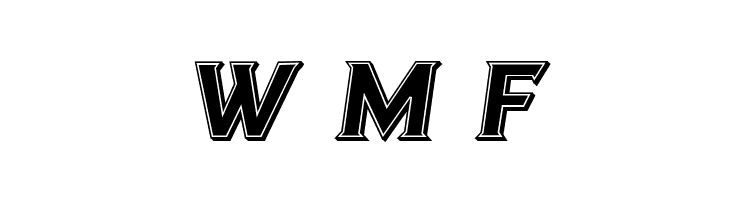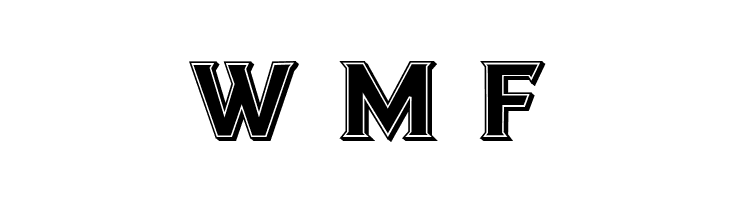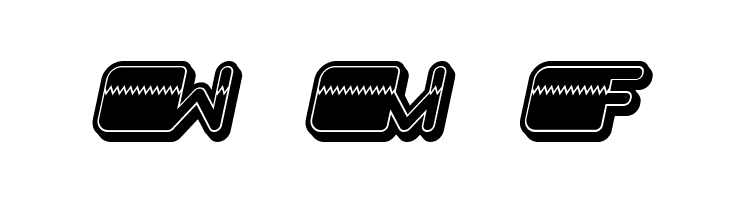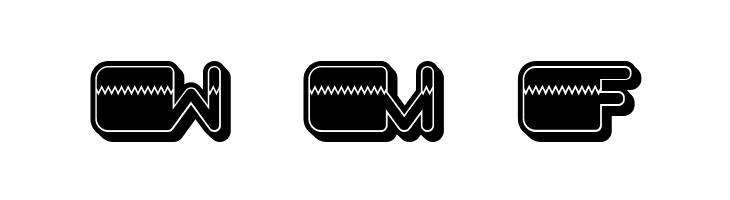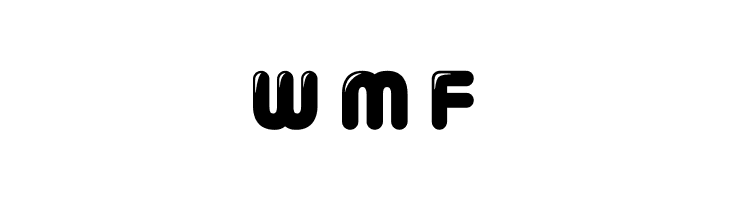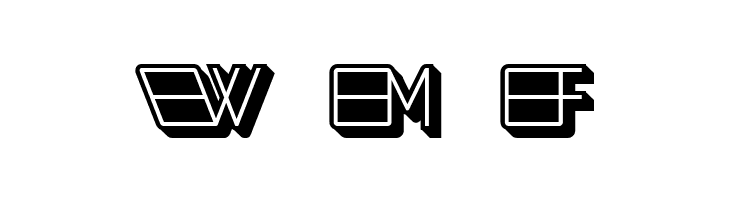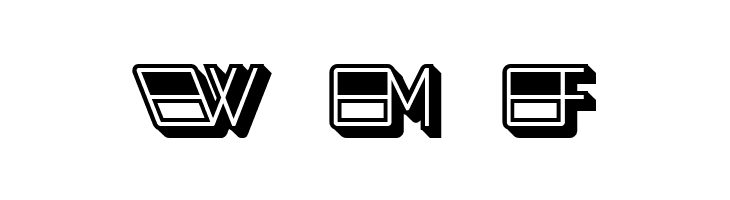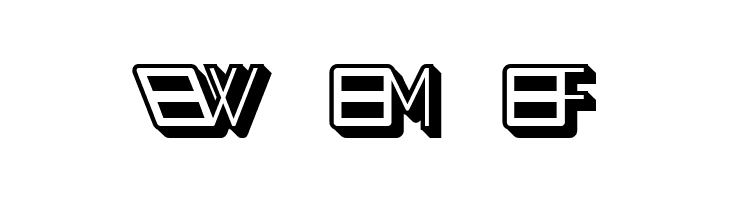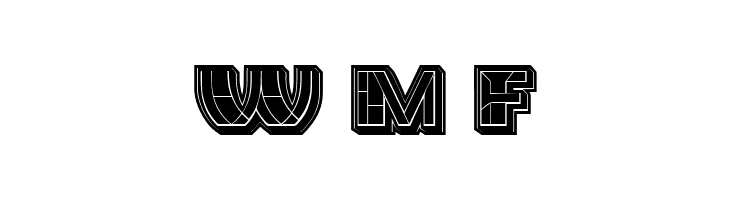
A bold, 3D italic font with a dotted outline for a striking effect.
A bold, 3D decorative font with a marquee style, ideal for vibrant and lively designs.
A bold, outlined, and italicized font with a modern, three-dimensional look.
A decorative set of illustrated headshots used in place of letters and numbers.
A bold, three-dimensional font with a futuristic and geometric style.
A 3D jigsaw puzzle piece font with a playful and engaging design.
A bold, 3D, italic font with sharp angles and a strong, modern look.
A playful, hand-drawn serif font with quirky, exaggerated serifs.
A bold, playful font with a distressed, hand-crafted appearance.
A dynamic, cursive-like font with flowing strokes and elegant design.
A dynamic, cursive script font with flowing, expressive characters.
A bold, playful font with a 3D shadow effect and dotted texture.
A bold, angular font with intricate geometric patterns and a striking appearance.
A bold, futuristic font with geometric and angular design elements.
A bold, futuristic font with sharp, angular edges and a geometric structure.
The image does not display a valid font.
A playful, cartoonish font featuring humorous icons and illustrations.
Illustrations of women, not a font.
A geometric, 3D-inspired font with a modern, cubic design.
A decorative and avant-garde font with geometric shapes and fragmented lines.
The image contains decorative illustrations instead of a standard font.
An ornate, decorative font with floral-themed boxed uppercase letters.
An ornate and decorative font with intricate floral designs within each character.
A whimsical font with bold letters and playful bunny illustrations.
A whimsical decorative font featuring sleeping cat illustrations with each character.
A whimsical, decorative font with characters encased in crowned frog illustrations.
A whimsical font with characters embedded in cartoon duck illustrations.
A decorative font featuring characters integrated into cartoon car illustrations.
A playful font with bold, tilted letters and charming illustrations.
A whimsical serif font with playful dolphin illustrations above each character.
A decorative serif font with characters in ink pots topped by quills.
A bold, playful font with cartoon tiger illustrations accompanying each character.
A bold, decorative font with vintage and modern elements.
A classic, calligraphic font with ornate serifs and elegant curves.
An ornate, decorative font with intricate floral embellishments.